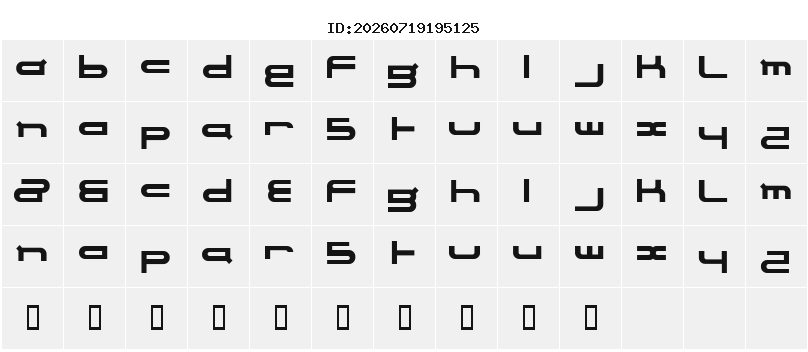
electrance Preview
• Font Name: electrance
• Full Font Name: electrance
• PostScript Name: Electrance
About electrance.ttf
electrance.ttf is a modern, elegant sans-serif font designed for ultimate readability and visual harmony. Perfect for branding, headlines, web design, and print materials.